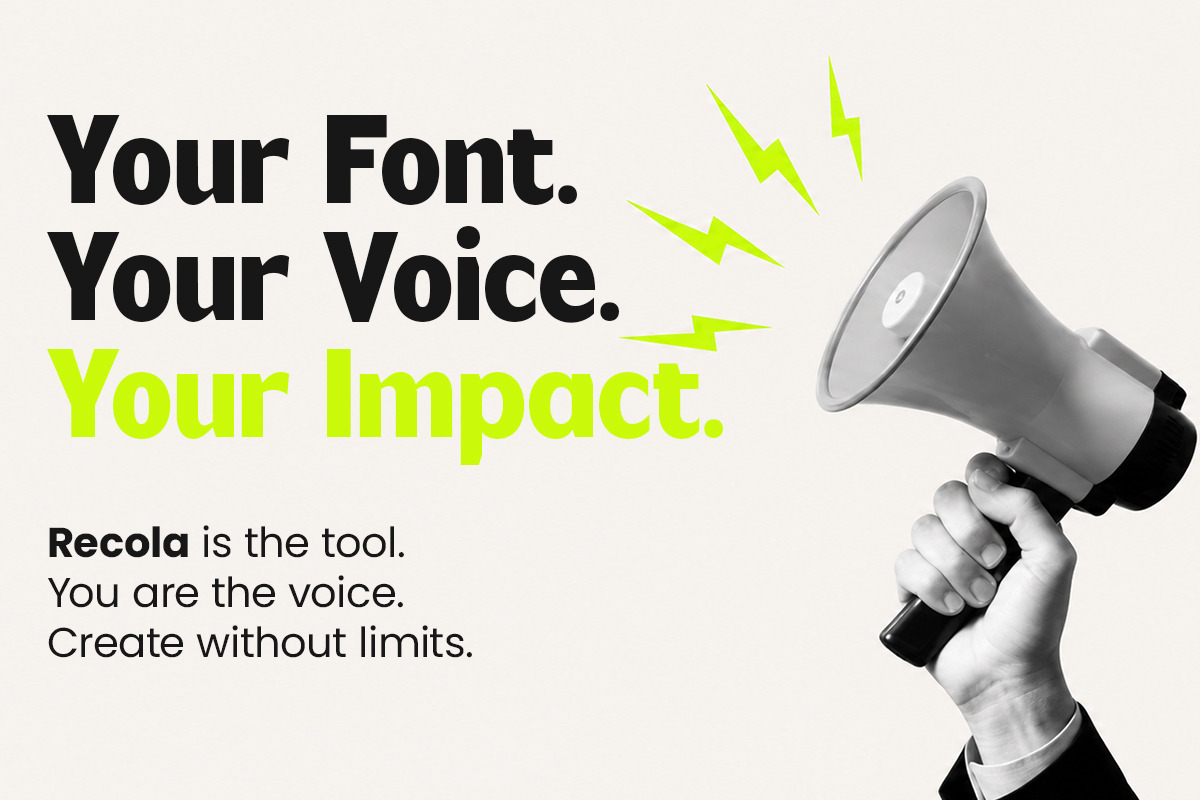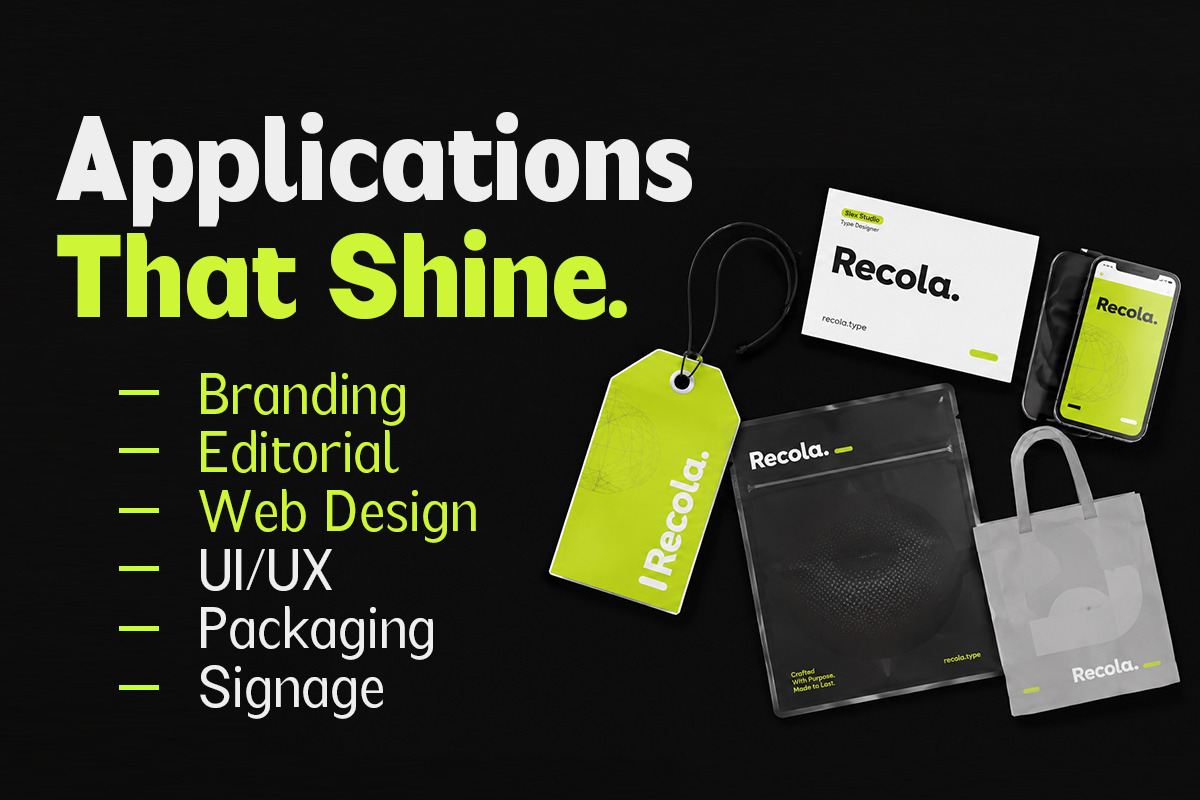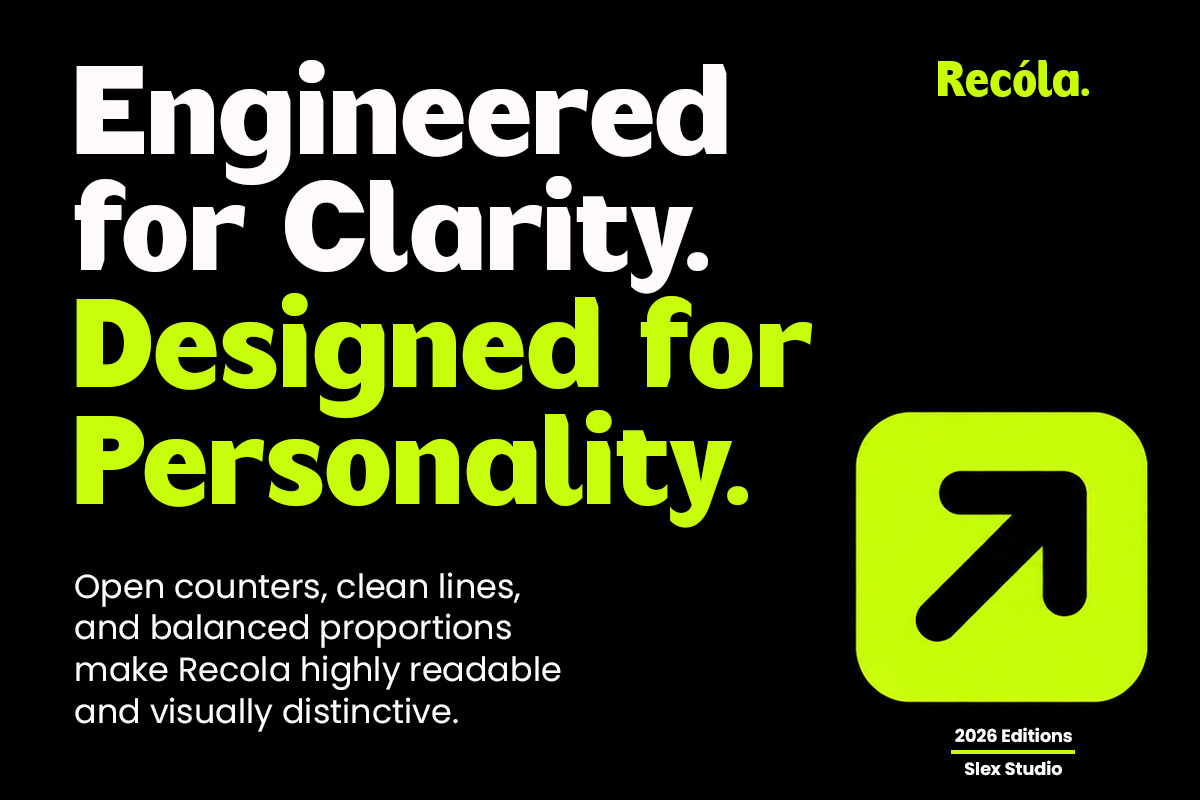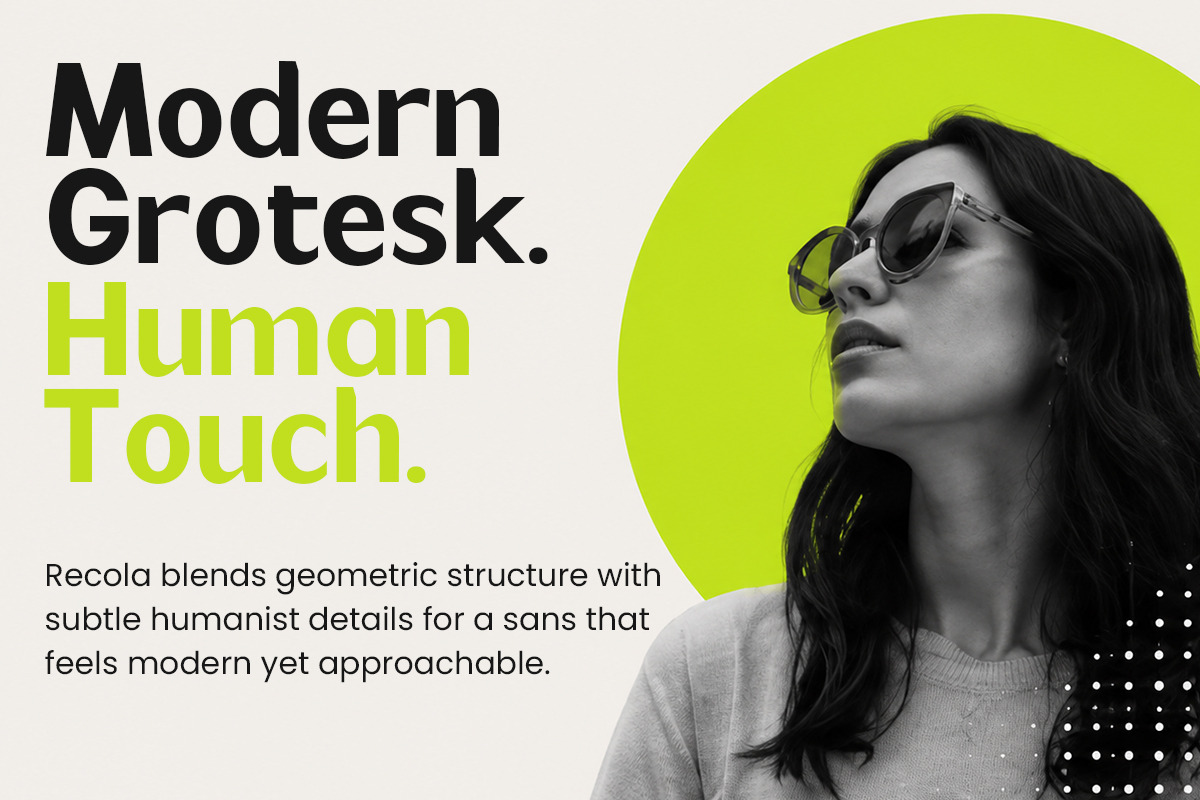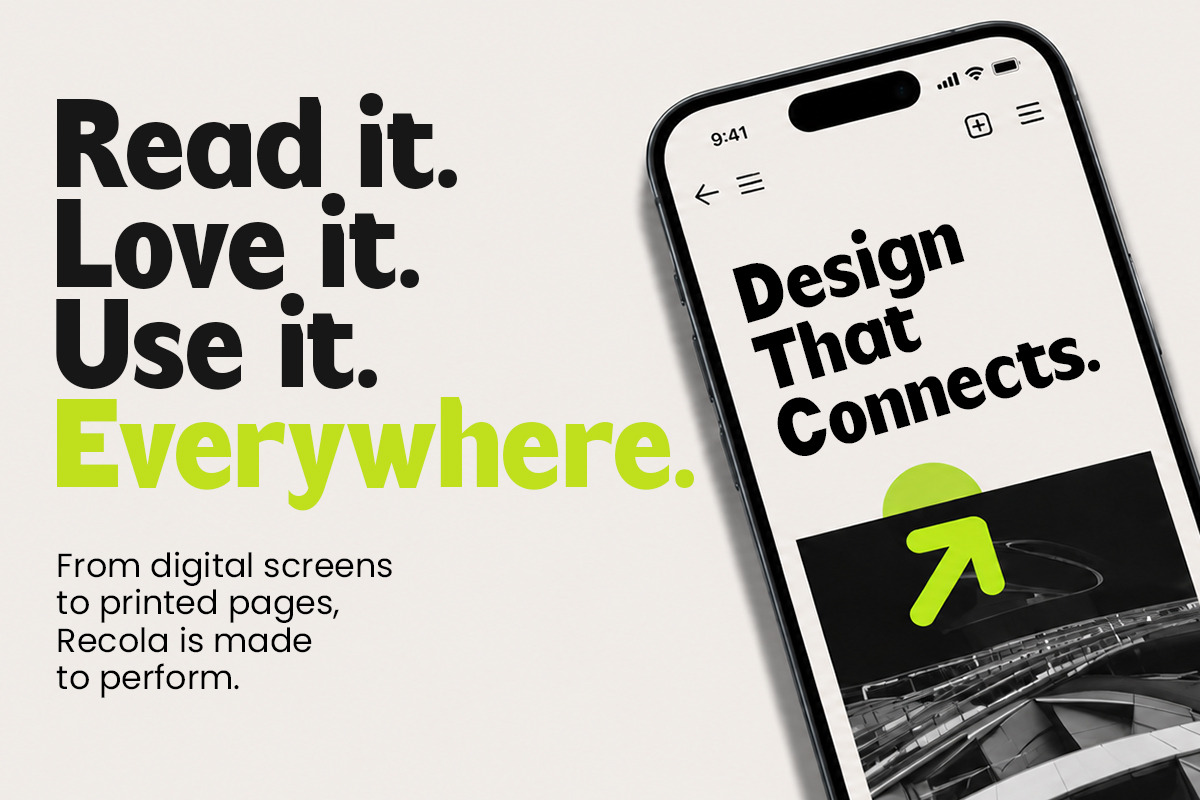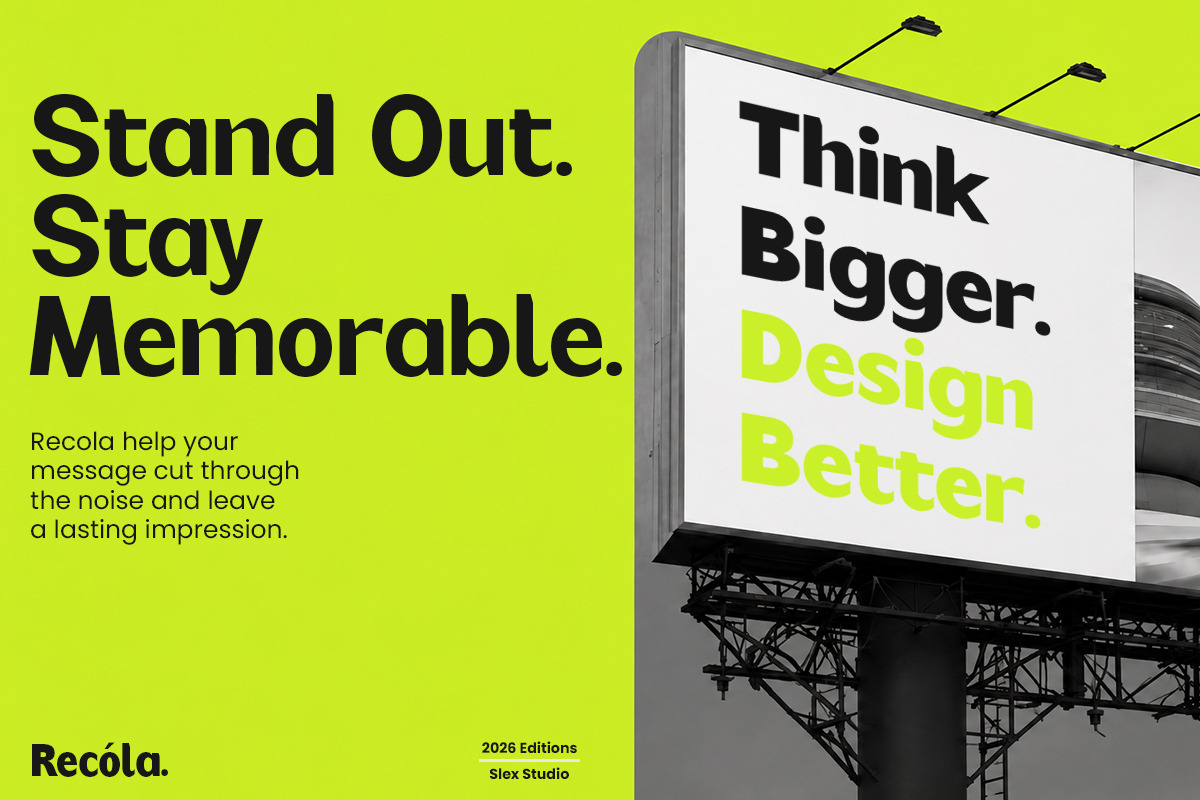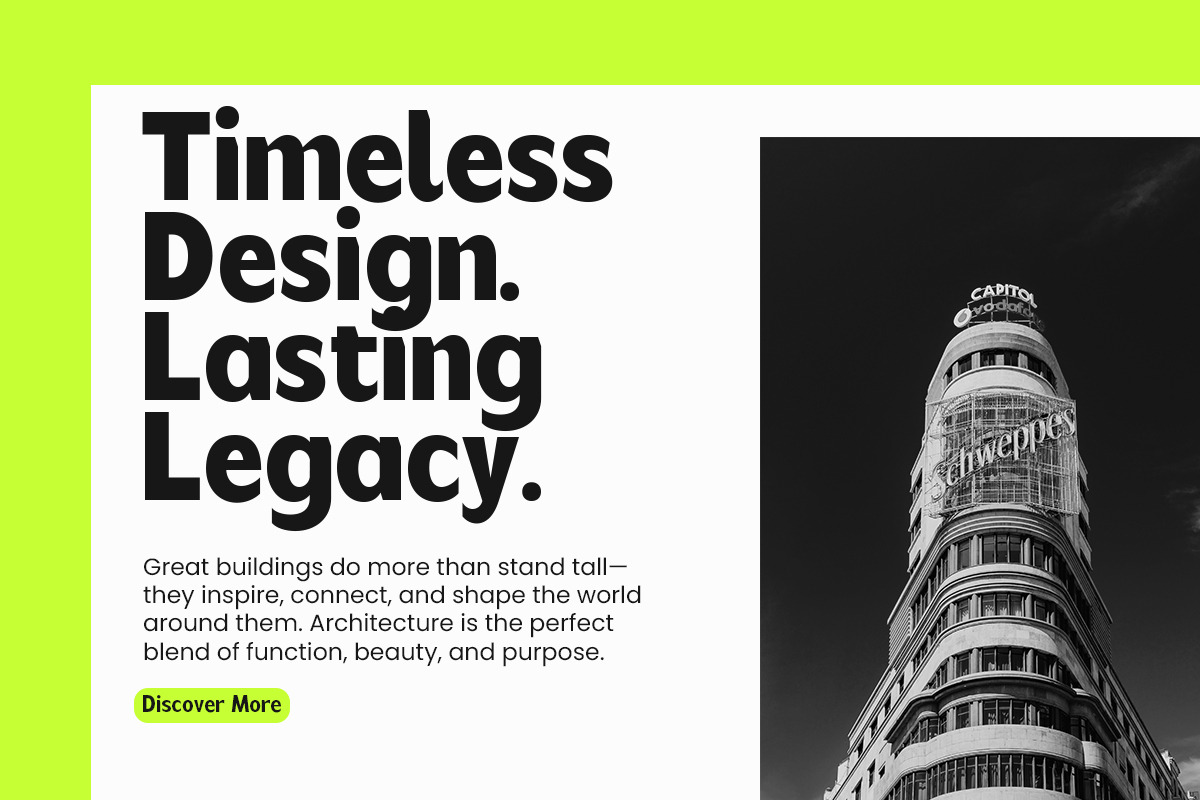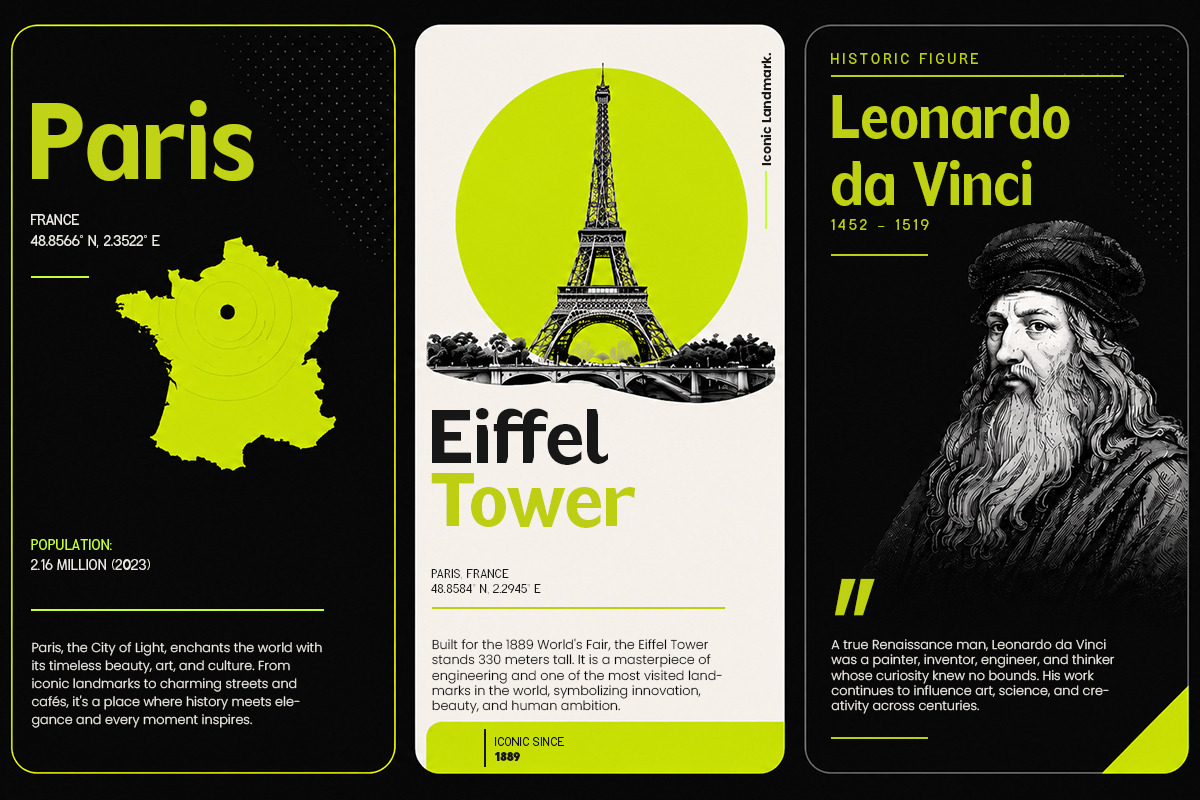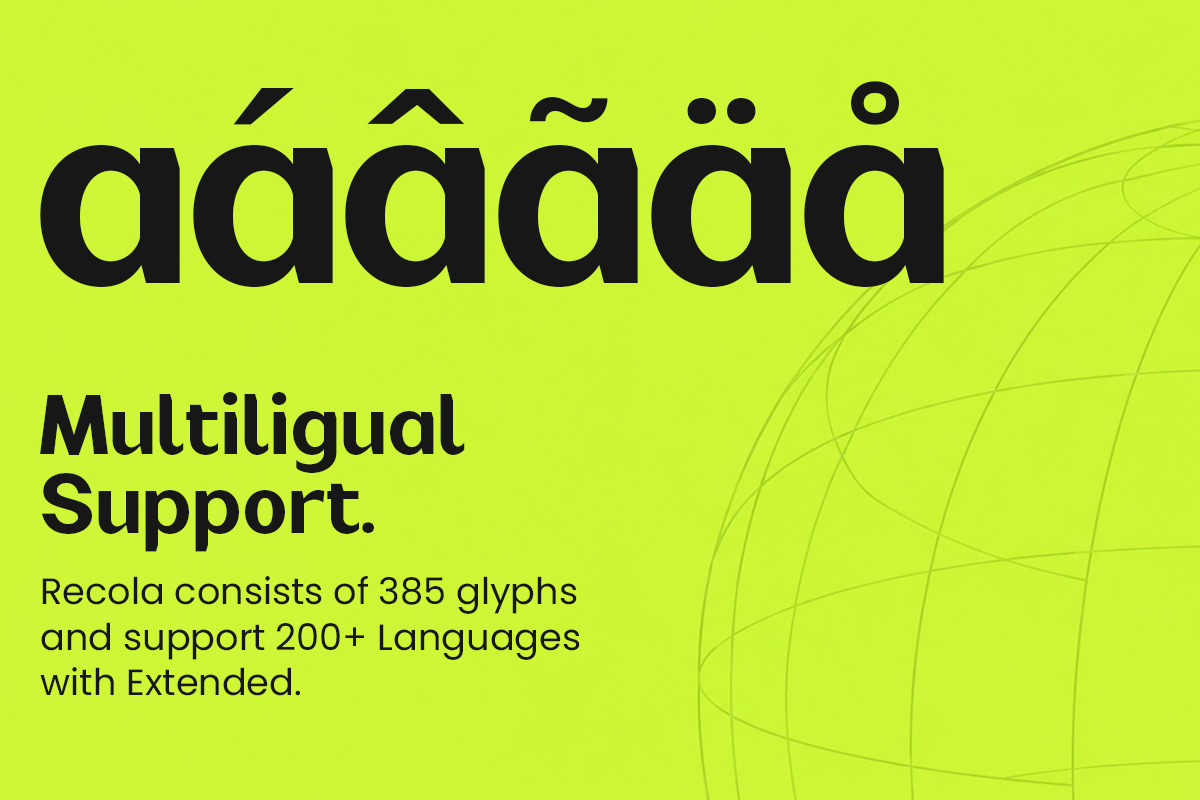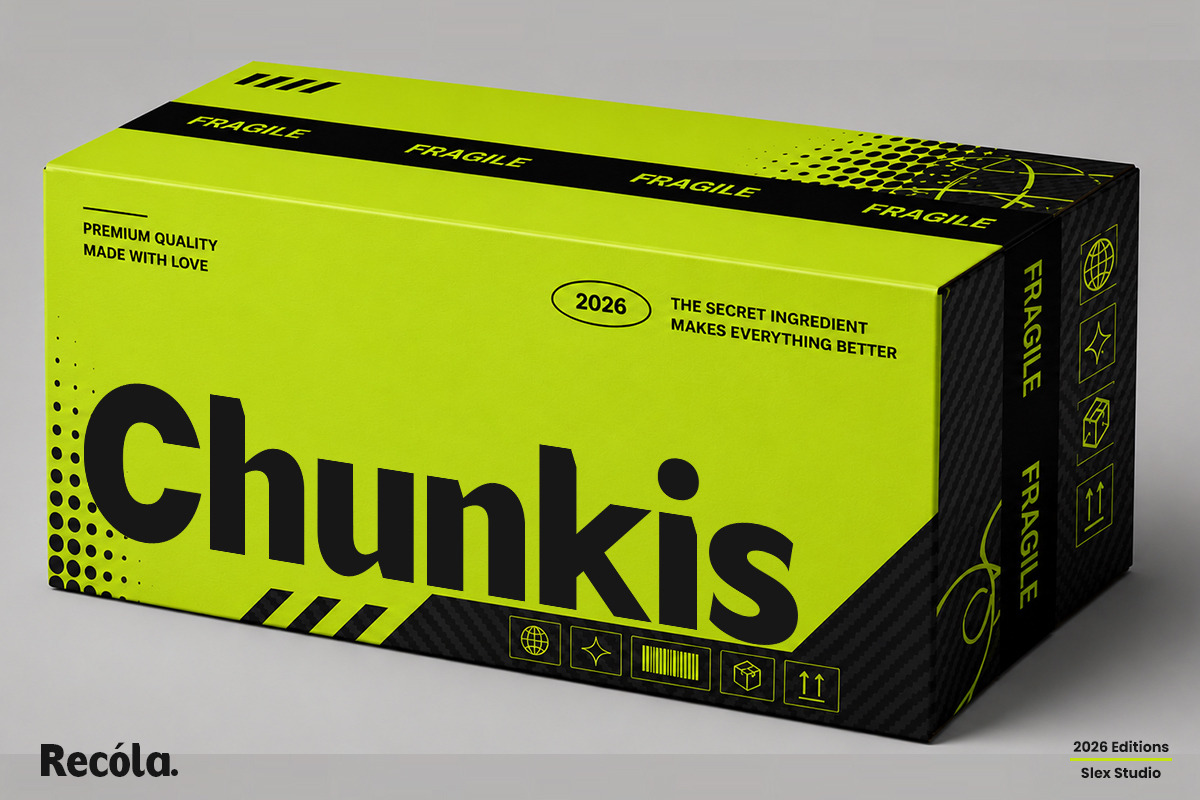
Recola
Recola is a contemporary sans-serif typeface crafted to bring bold personality and refined clarity into modern design. Combining clean geometric construction with expressive curves, Recola delivers a confident visual voice that feels both approachable and distinctive. Its strong proportions, open counters, and carefully balanced spacing ensure excellent readability across branding, editorial, digital interfaces, packaging, and advertising applications.
Designed as a versatile variable font, Recola offers seamless weight transitions that allow designers to create everything from subtle typographic hierarchies to powerful statement headlines within a single font family. The typeface embraces a modern aesthetic while maintaining a warm, human touch, making it equally suitable for innovative startups, lifestyle brands, creative campaigns, and forward-thinking visual identities.
With multilingual support, extensive character coverage, and a flexible design system, Recola empowers creators to build memorable brand experiences with confidence. Bold when it needs attention, clean when it demands clarity, and expressive when personality matters, Recola is a typeface designed for the next generation of visual communication.